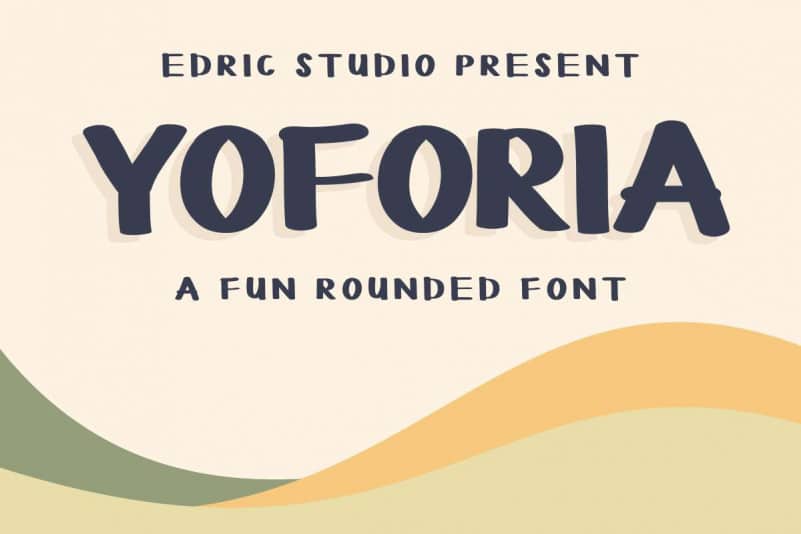
YOFORIA Rounded Font
YOFORIA Rounded Font is an exclusive unique bold decorative display typeface with inky brush style. This font has a great characters set, perfectly managed with well spaced and kerning. The theme style of this font will be fun, bold, marker, strong, simple
YOFORIA Rounded Font will be great for any projects including :poster, flyer, signage, cover, brochure etc. Many industries will be match for this typeface: events, gym, sport, fitness, school, education, musician etc.